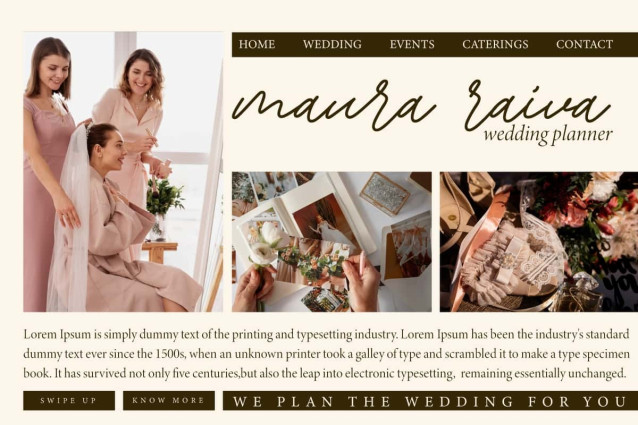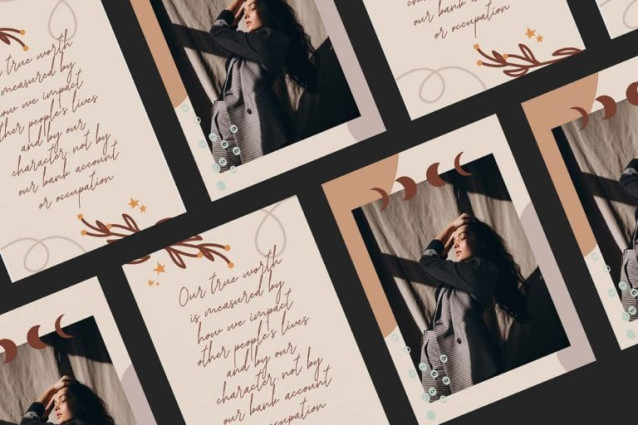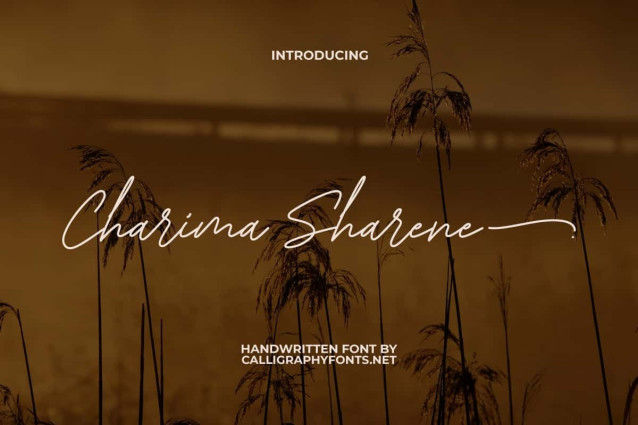
Charima Sharene Font
Charima Sharene Font is an elegant and simple signature handwritten font with a manual style arranged very neatly. This font is equipped with various ligatures and swoosh in it. Perfect for apps, banners, blogs, brochure, cover, greeting card, headers, invitation, logos, mockup, packaging design, quotes, social media design post, stationery, tag label, sticker, template, title, watermark, website, and much more.
Charima Sharene Font is a nice handwritten signature type that gives an authentic and classy feel in its own way that will complement your text. You can use this font for accessories and gifts, advertising, author, clothing boutique, brand, cafes, cosmetologist, florist, graphic design, handicraft, home furniture, interior designer, jewelry, photography, publisher, restaurants, spa salon, wedding organizer, and more.